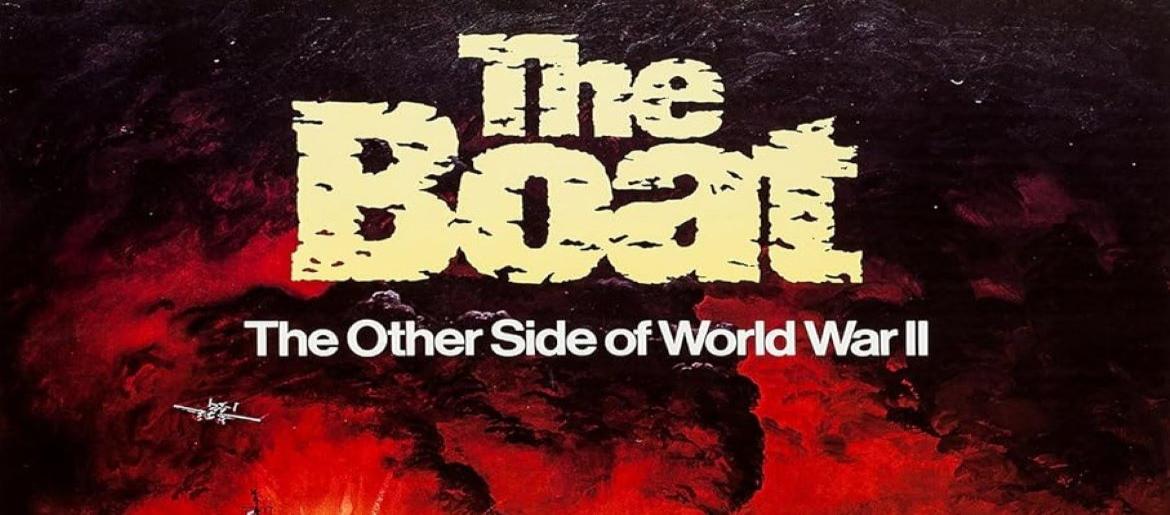
Das Boot Font
The Das Boot Font perfectly embodies the intensity and claustrophobic tension of Wolfgang Petersen’s 1981 war epic. Inspired by the film’s gripping portrayal of a German U-boat crew during World War II, this typeface conveys raw strength, realism, and the relentless atmosphere of survival under pressure. Its bold, blocky design feels industrial and worn, mirroring the harsh conditions and unyielding spirit of the movie’s setting.
The original Das Boot Font was custom-designed for the film’s title, featuring distressed edges and heavy weight that evoke grit and realism. Replica versions such as the Das Boot Font Alternative successfully recreate its rugged aesthetic, making it ideal for projects involving war, history, or survival themes. Alternatives like Impact, Compacta, or rough sans-serif typefaces offer similar strength and cinematic power.